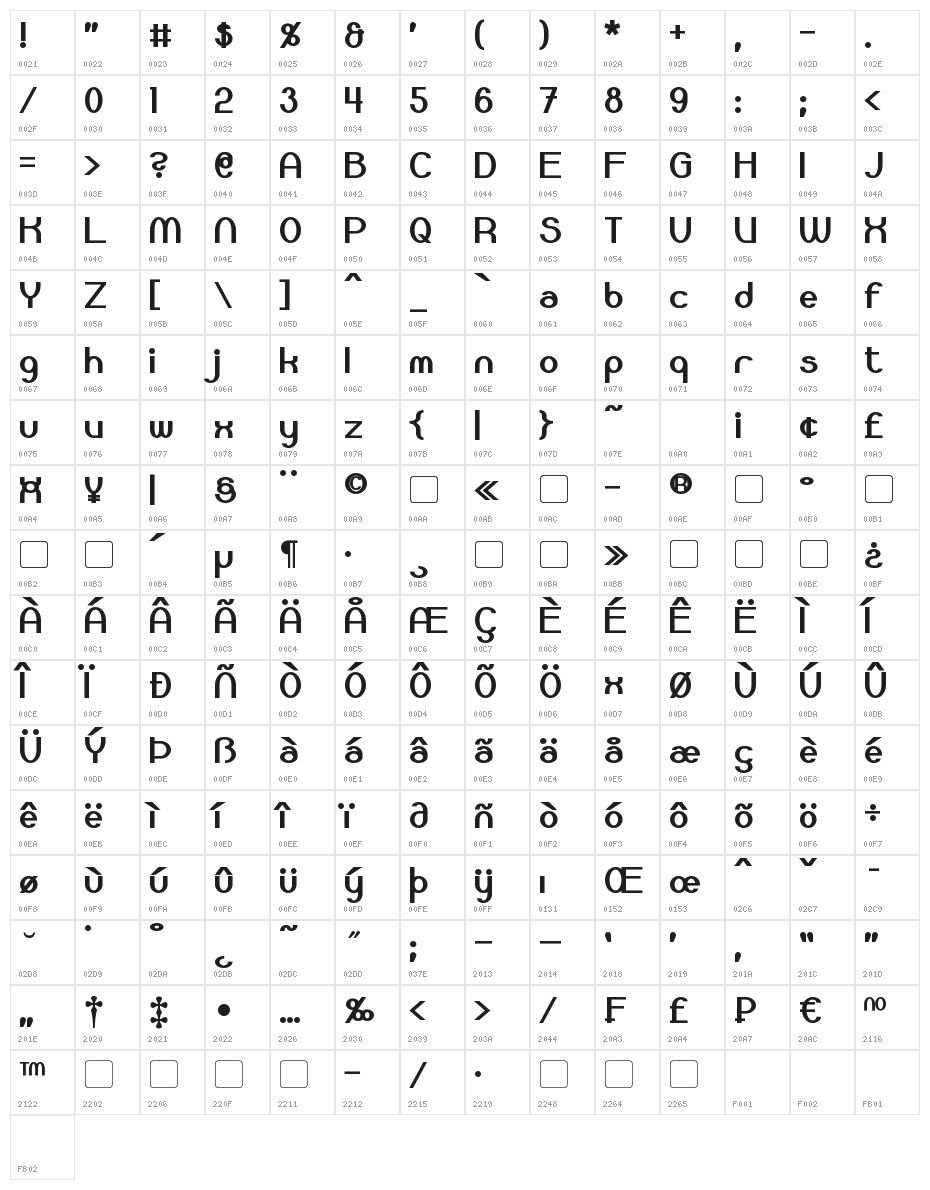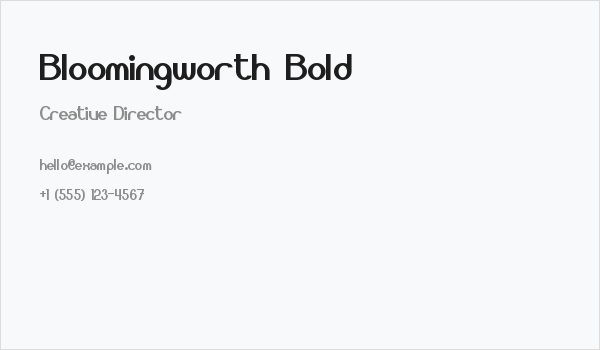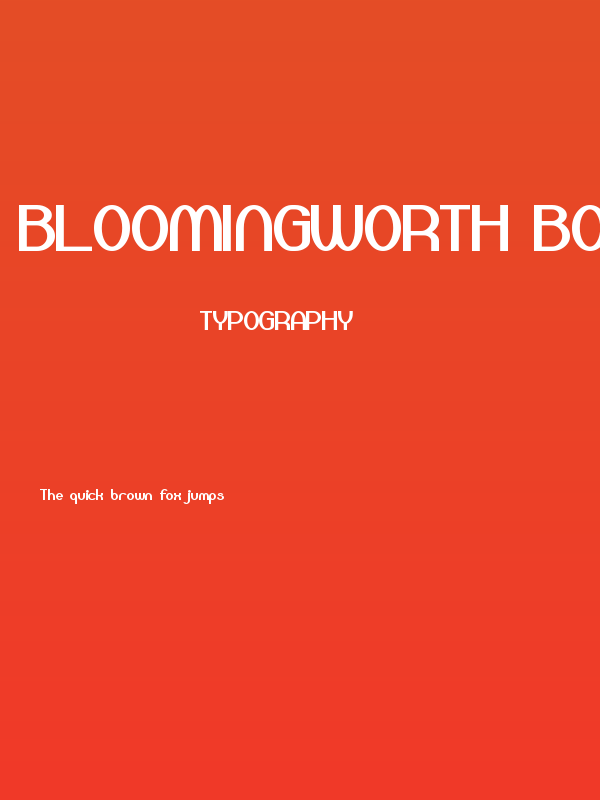
Bloomingworth Bold Font
Bloomingworth Bold Description
This font features a bold and modern design with a unique blend of geometric and rounded elements. The uppercase letters are characterized by their strong, clean lines and slightly curved edges, giving them a contemporary feel. The lowercase letters maintain a consistent style, with smooth curves and a balanced weight that enhances readability. Numbers and special characters follow the same design principles, ensuring uniformity across all elements. The overall appearance is both striking and versatile, making it suitable for a variety of design applications.